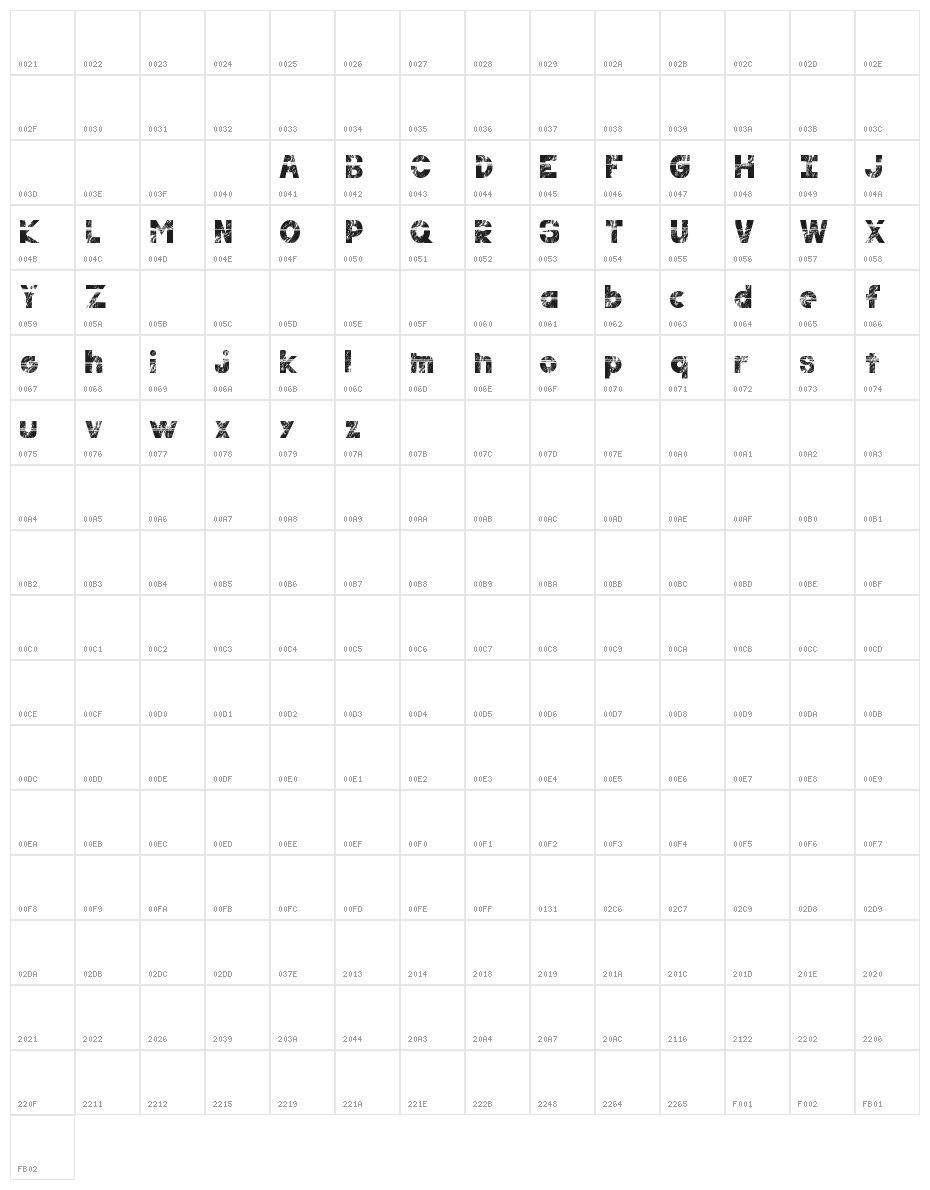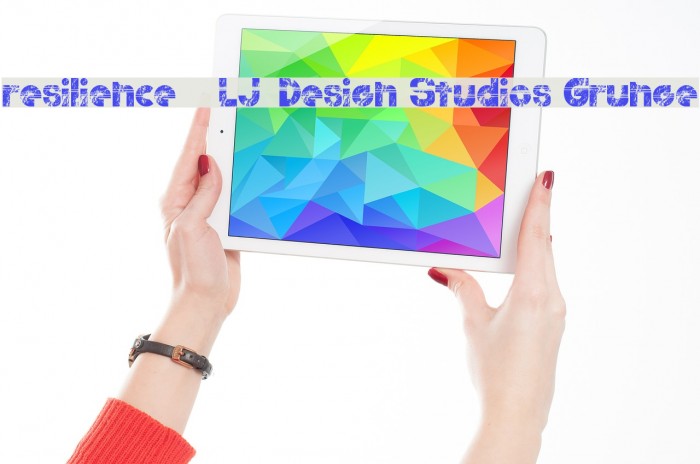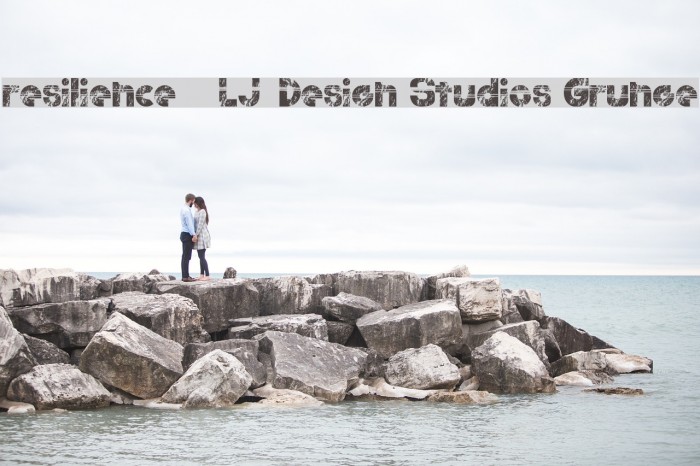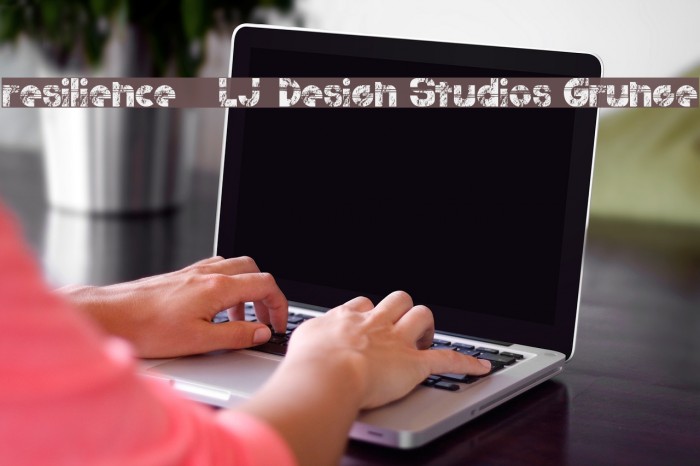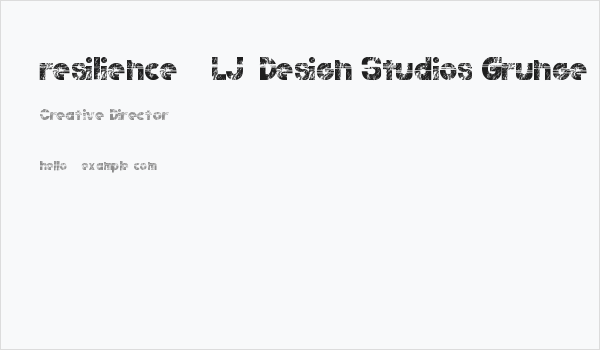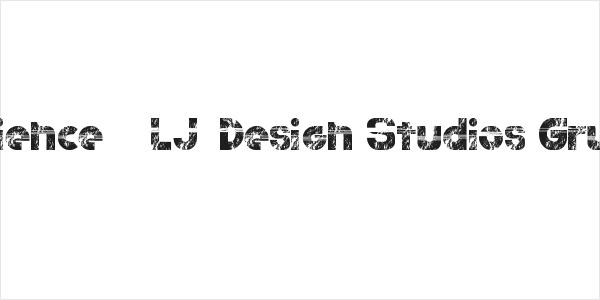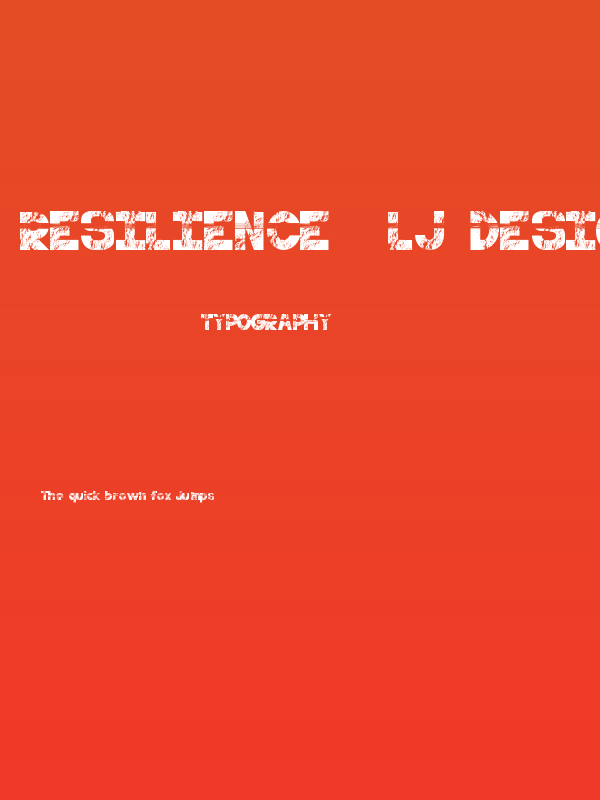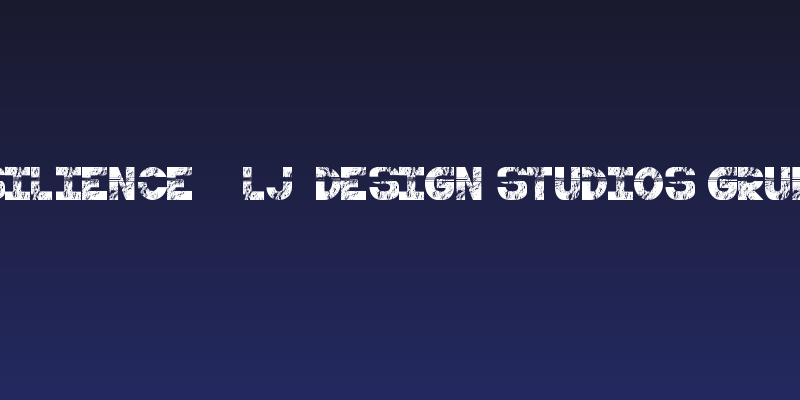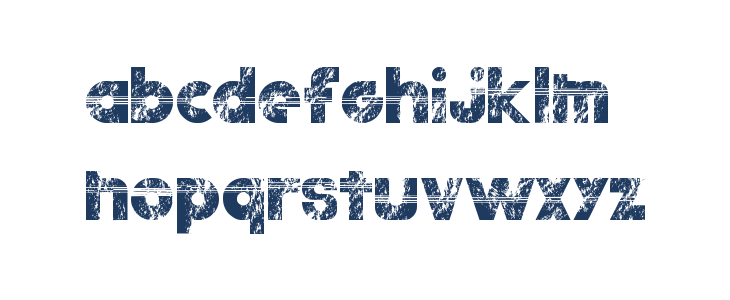
resilience - LJ-Design Studios Grunge Font
resilience - LJ-Design Studios Grunge Description
This font features a bold, distressed style with a grunge texture that gives it a rugged and worn appearance. The characters are uppercase and lowercase with a consistent rough pattern that adds a sense of edginess and rawness. The font's design is impactful, making it suitable for projects that require a strong visual statement. The letters are well-defined despite the grunge effect, maintaining legibility while offering a unique aesthetic. The texture varies across the characters, providing a dynamic and visually interesting look that can enhance creative designs.
| Overall Style | Grunge, Edgy |
| Proposed Projects | Ideal for album covers, posters, urban-themed designs, and branding that requires a gritty, edgy look. |